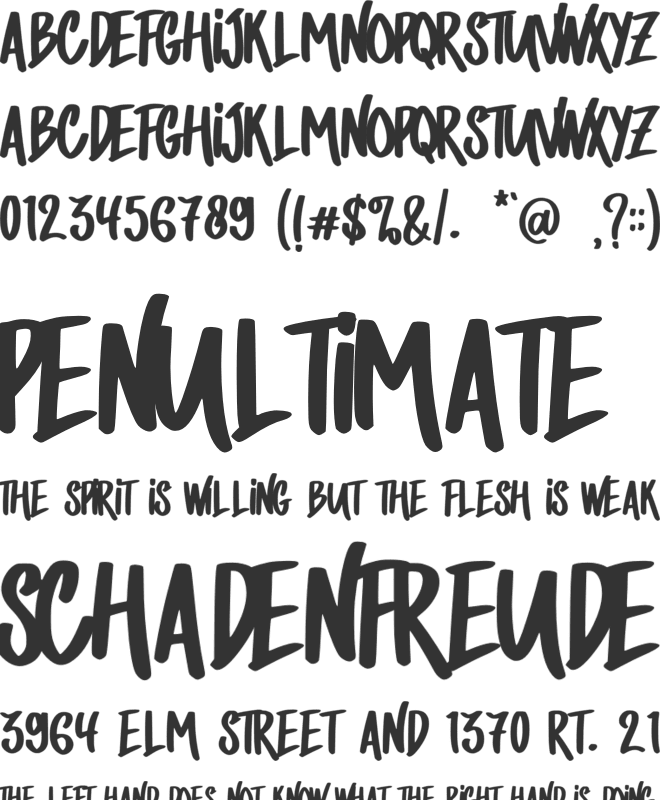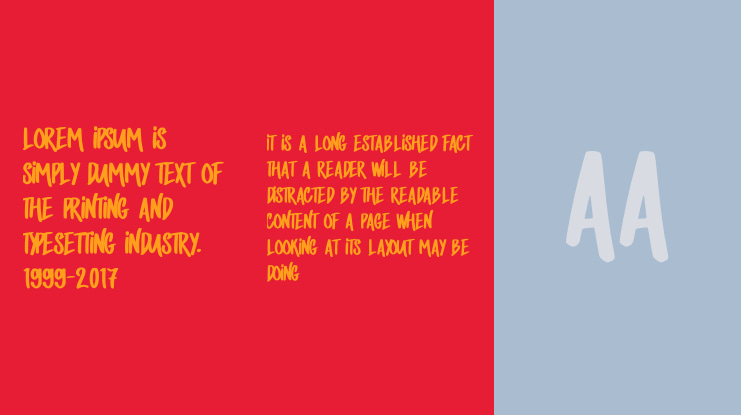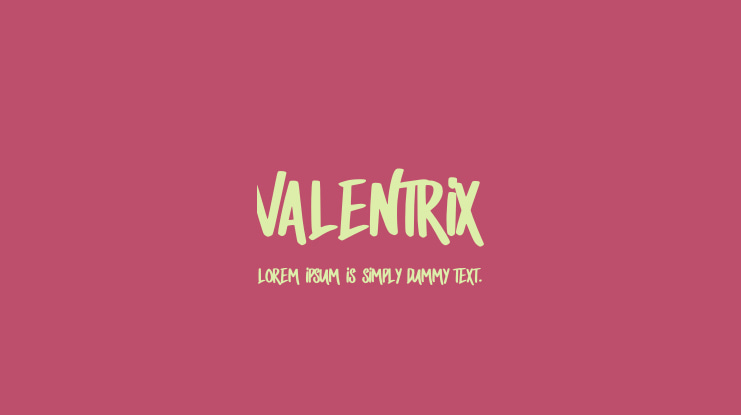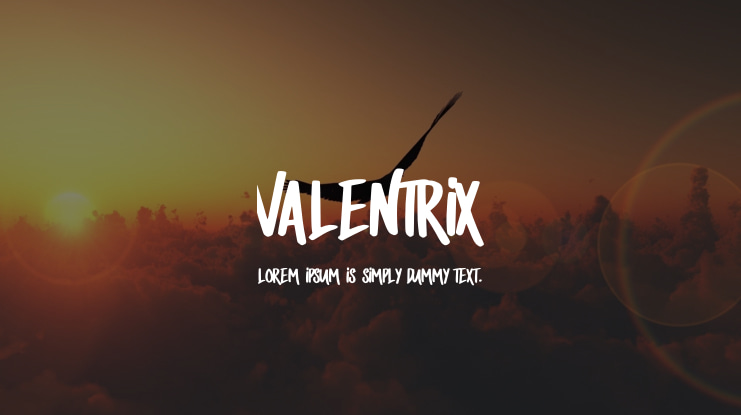
Valentrix Font
Valentrix boasts graceful curves and striking lines, making it perfect for wedding themes, luxury branding, and romantic posters. It harmoniously blends elegance and boldness, creating a captivating visual statement for impactful designs.